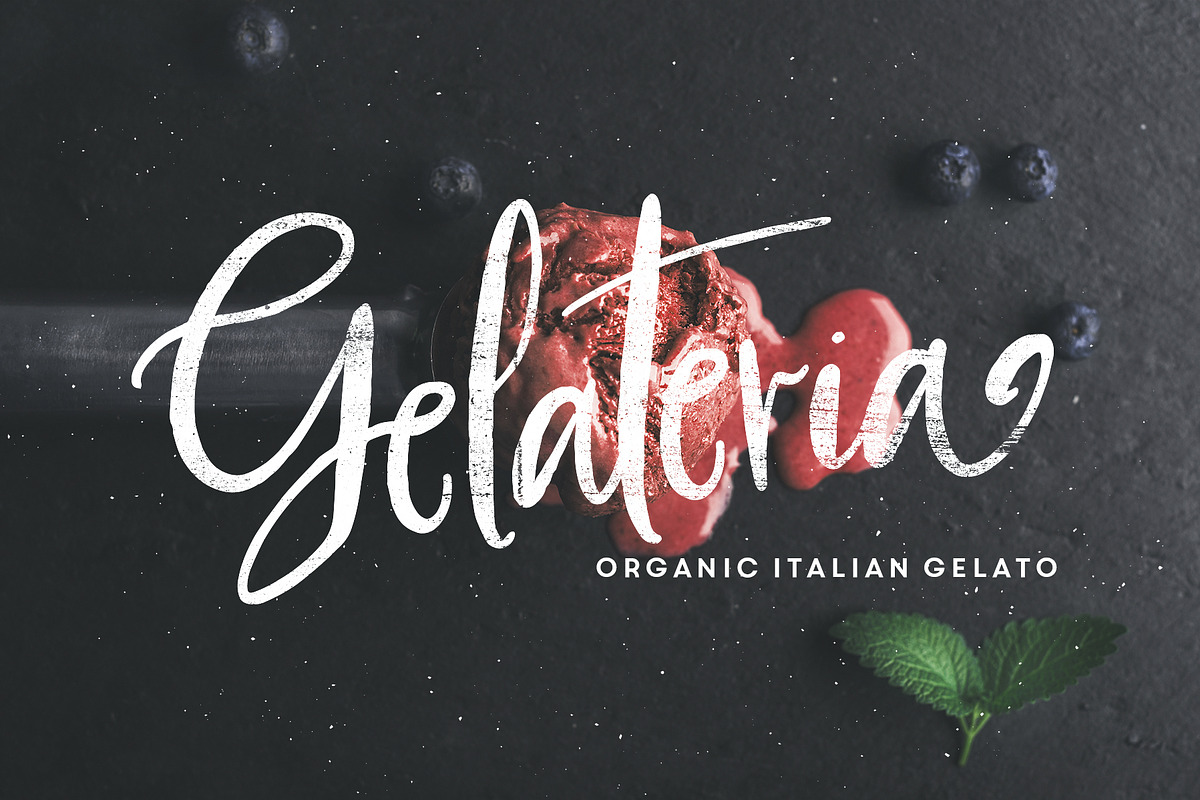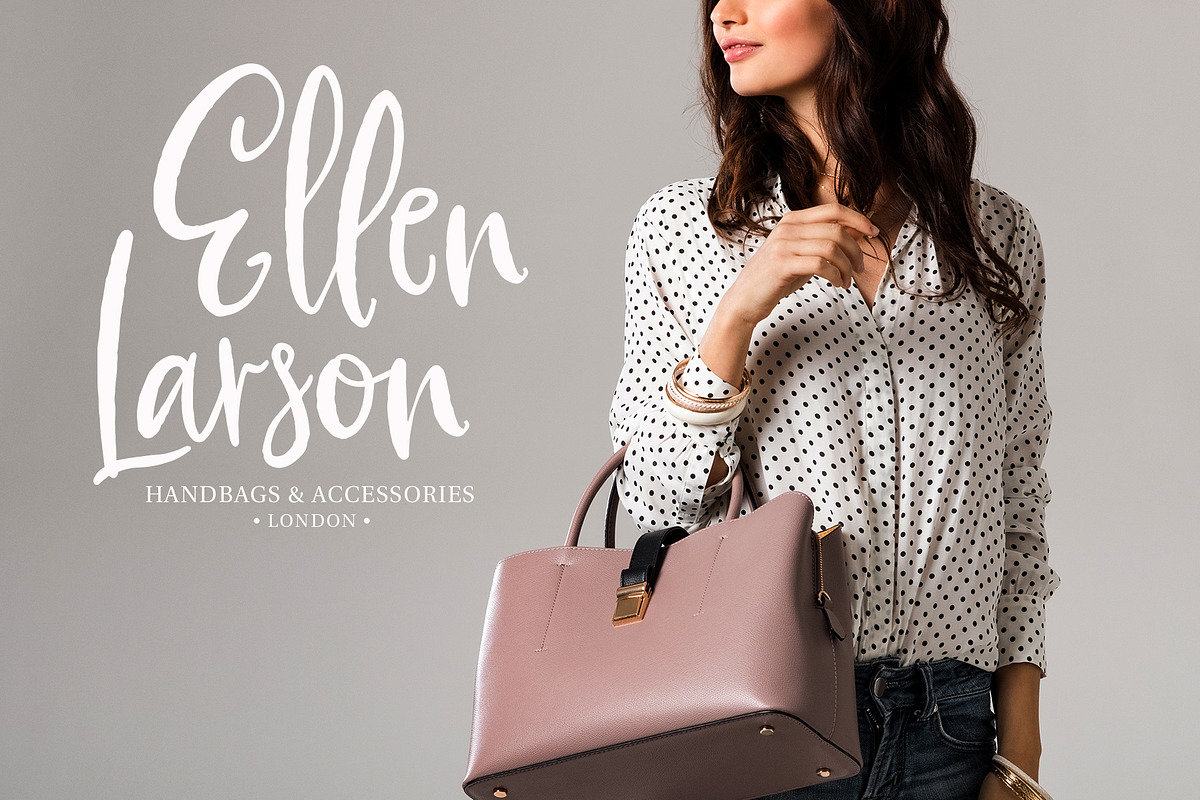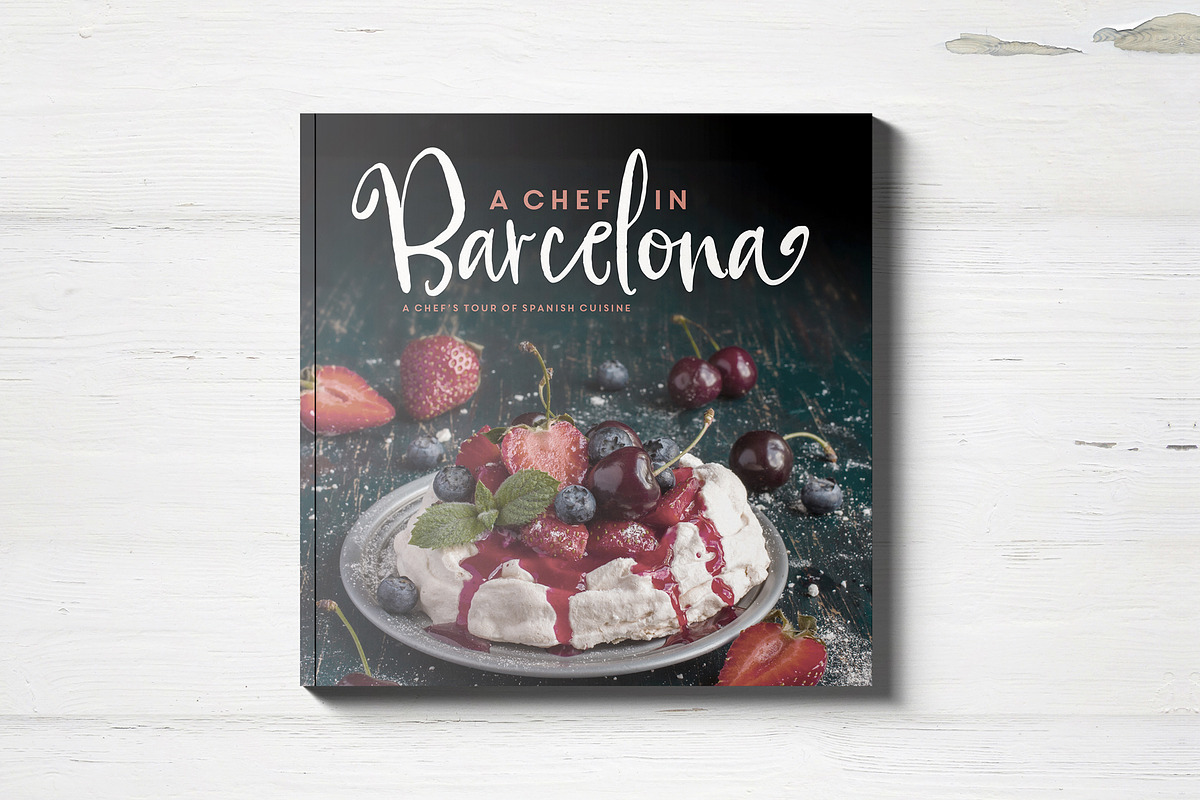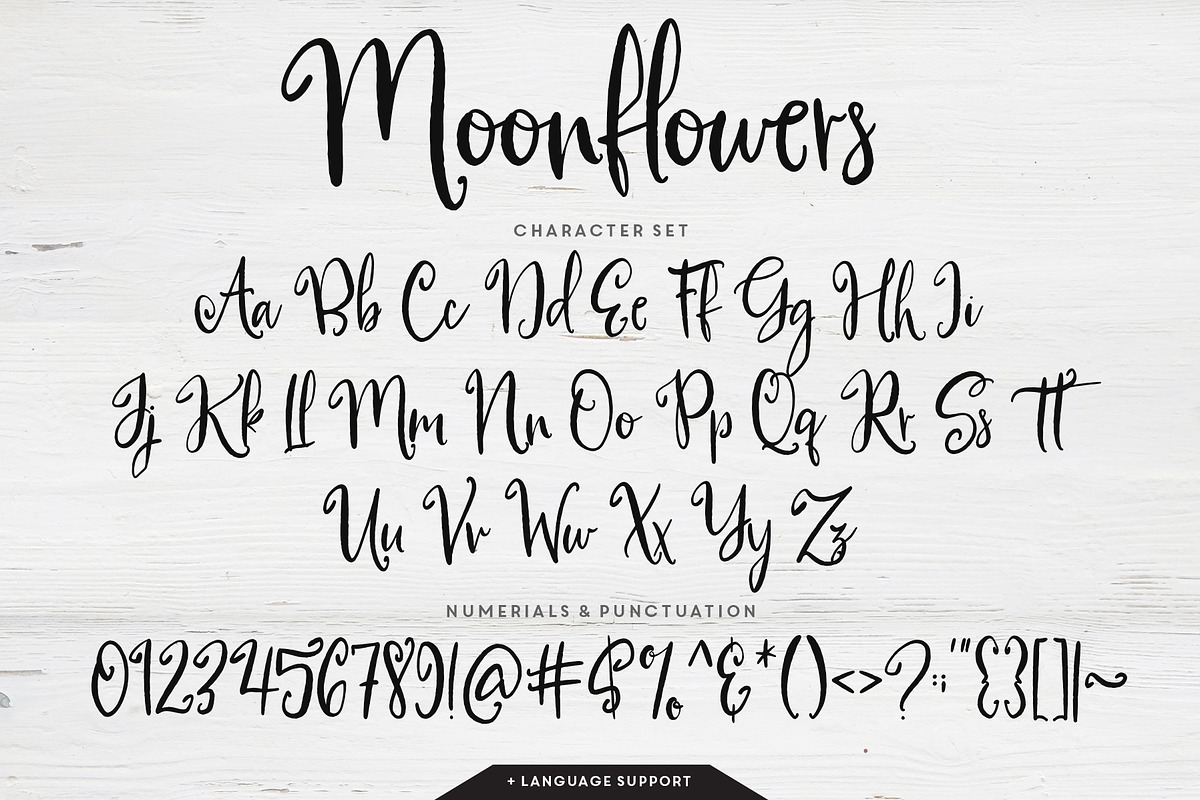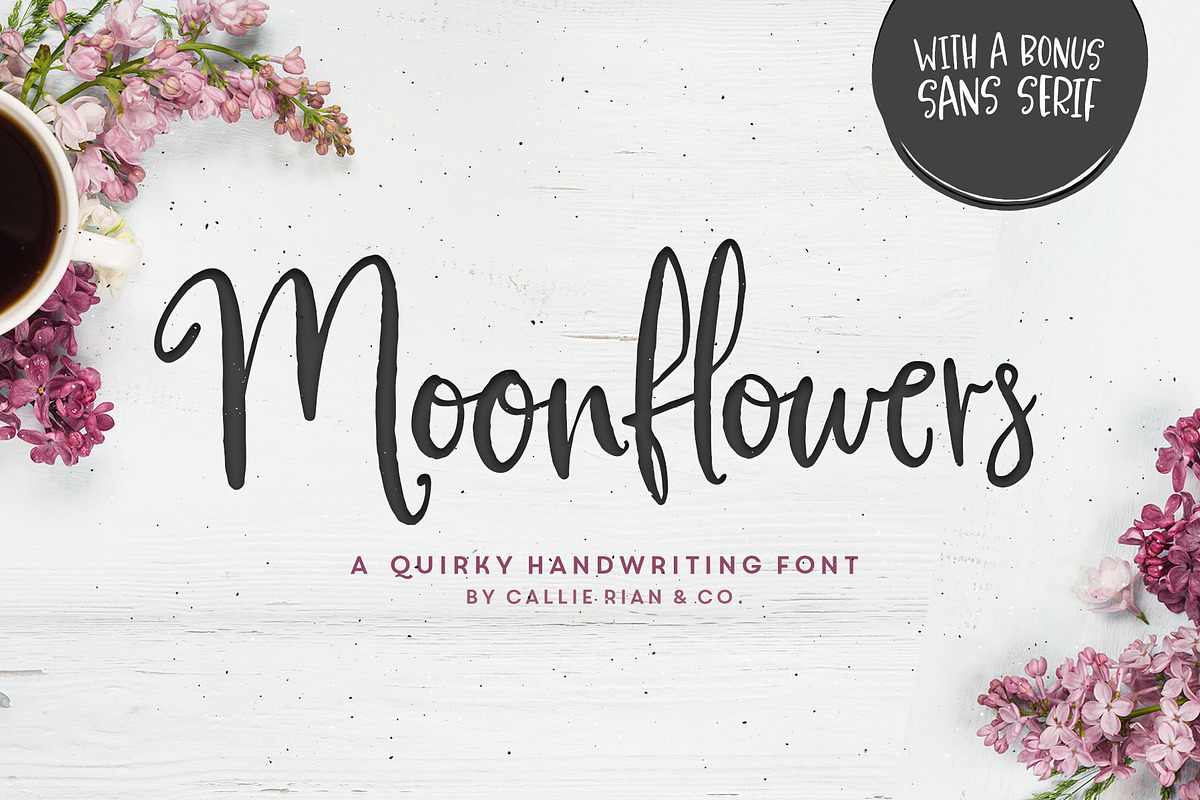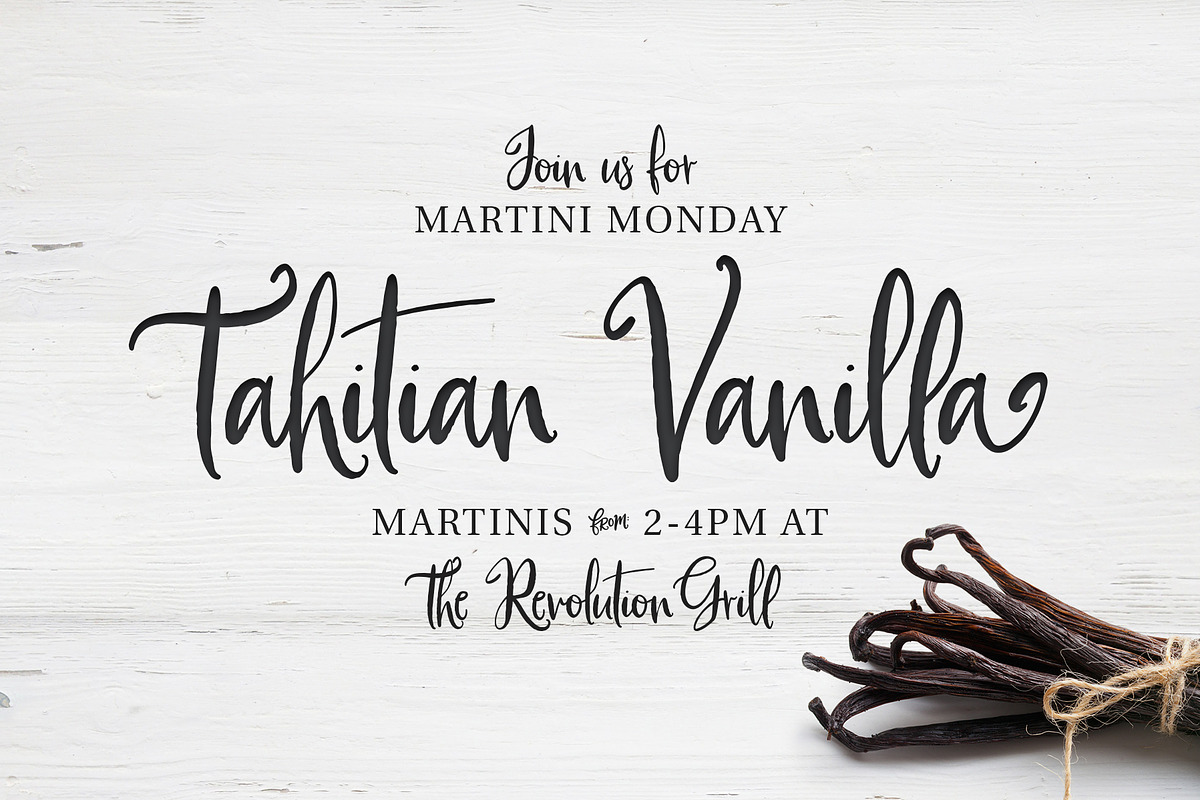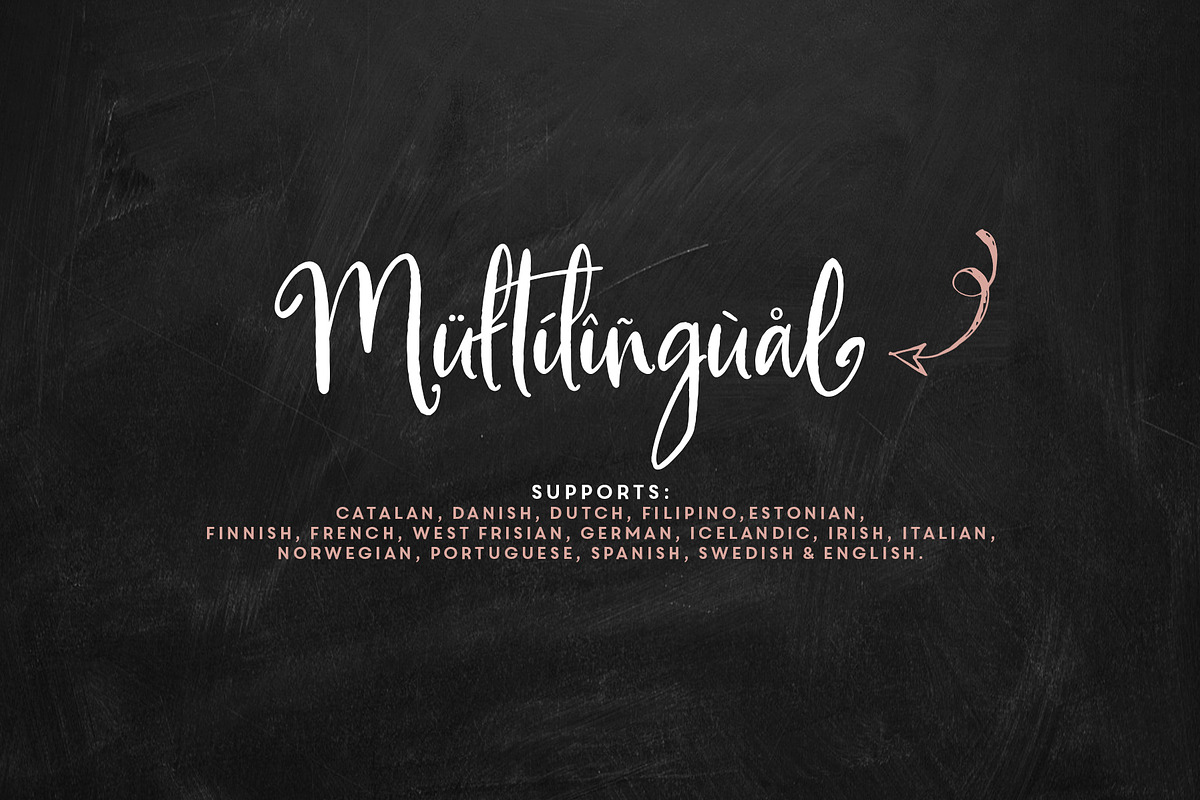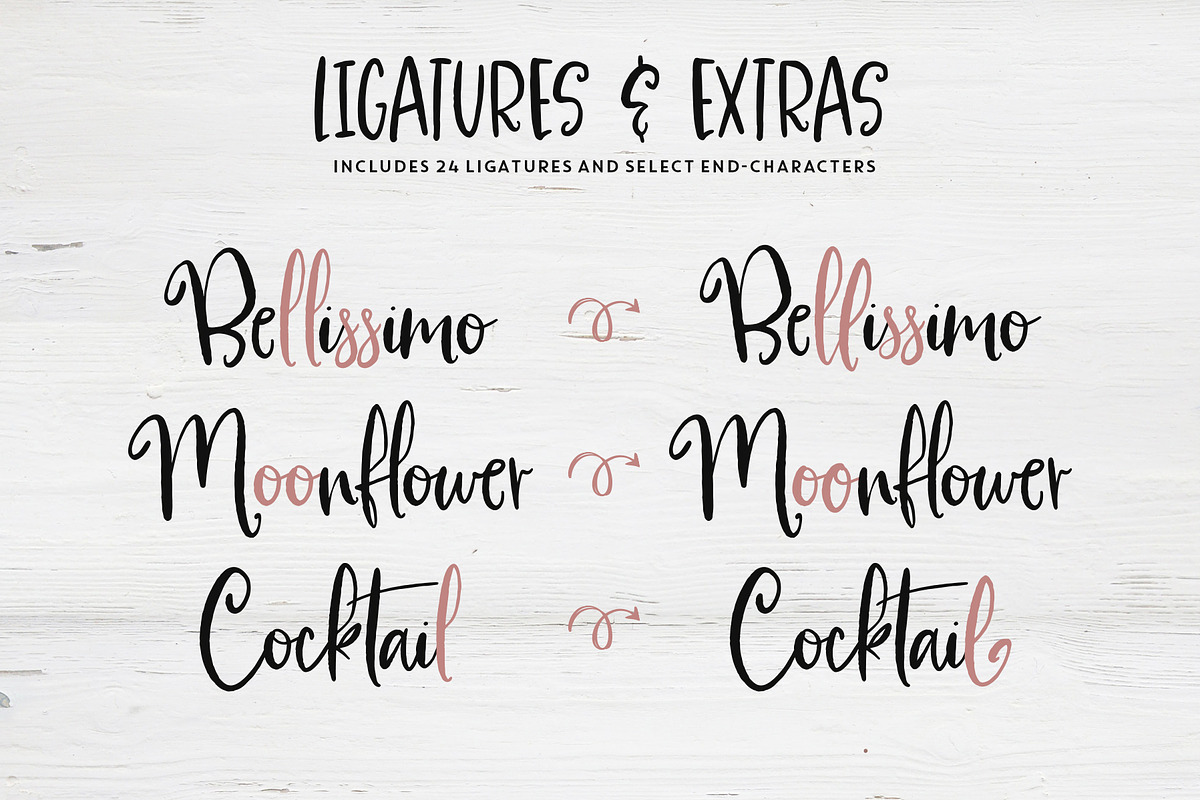
Moonflowers Font Family
Moonflowers Font Family by Callie Rian & Co. is a font selected for branding, posters, packaging, typography.
Why Moonflowers Font Family is worth a look
Moonflowers Font Family by Callie Rian & Co. fits naturally into Branding, posters, packaging, typography.